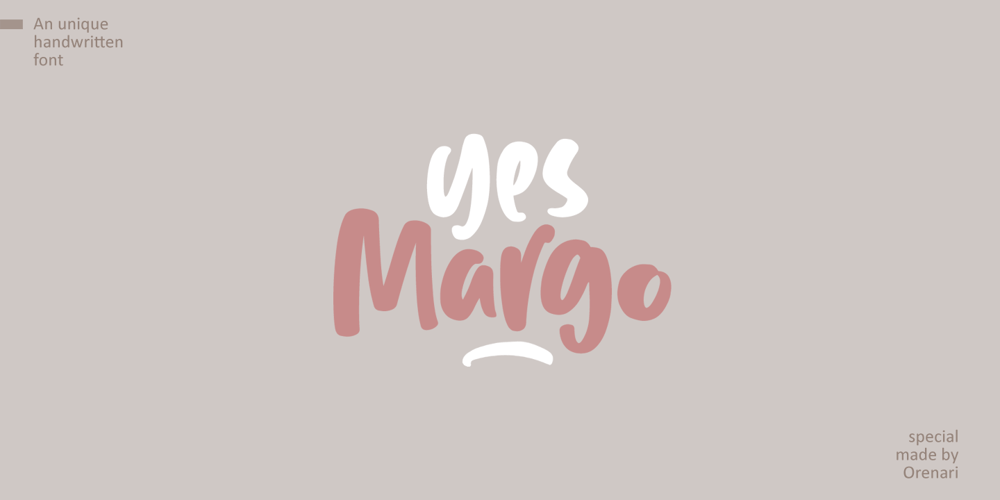
Yes Margo Font Family was designed by Lia Wijayanti and published by Orenari. Yes Margo contains 1 styles and family package options. Yes Margo is an unique handwritten font. It has sweet and lovely touch. Yes Margo is perfect for many design purposes, just try on your creative project and it will be cool ๐